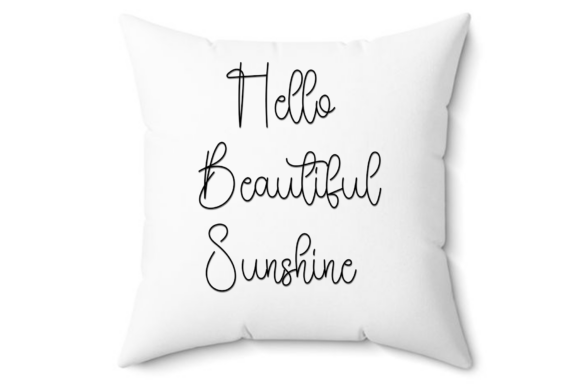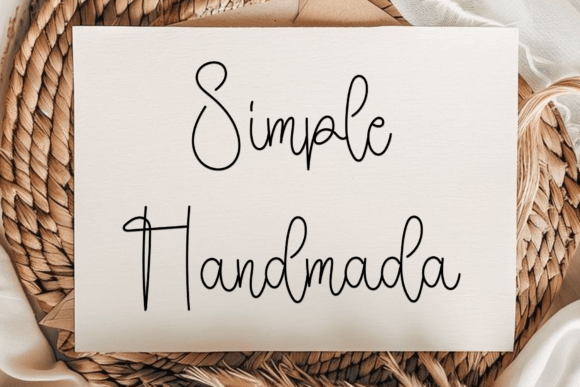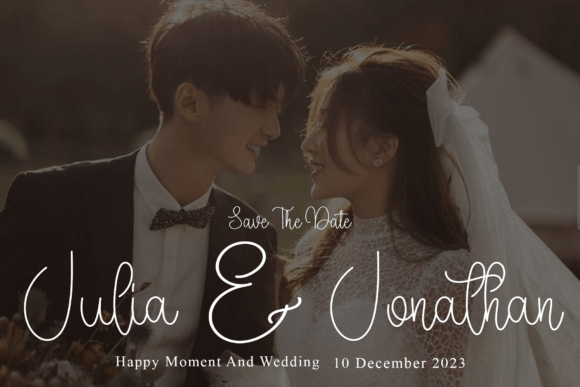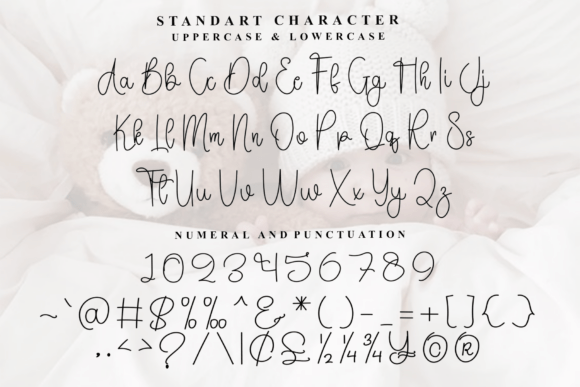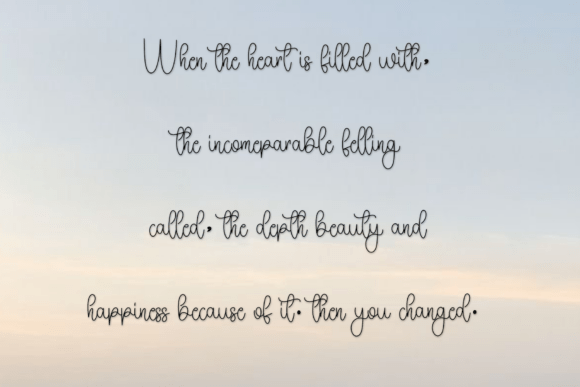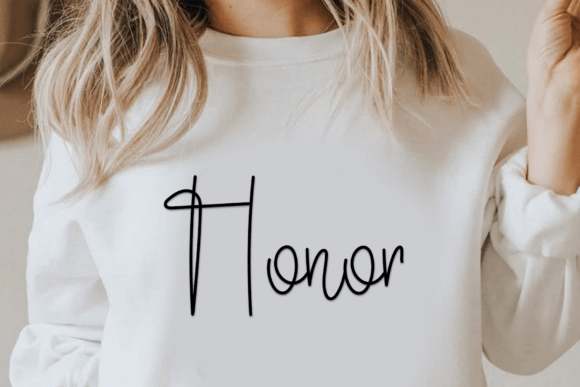
Discover the Charm of Farmhouse Font: Elevate Your Designs with a Unique Touch
In the world of typography, few fonts manage to capture the essence of rustic charm and modern appeal as effectively as the Farmhouse Font. This beautifully crafted font is designed with a soft, unique touch that sets it apart from more traditional typefaces. Its distinctive strokes and versatile character set make it an invaluable asset for designers, crafters, and creatives looking to add a personal touch to their projects.
The Distinctive Character of Farmhouse Font
Farmhouse Font boasts a unique design that blends seamlessly into various creative projects. Its soft strokes and carefully considered character set give it a special charm, making it perfect for a wide range of applications. Whether you’re working on a design project, crafting a handmade card, or developing a brand identity, Farmhouse Font brings a touch of warmth and personality that can elevate your work from ordinary to extraordinary.
One of the standout features of Farmhouse Font is its versatility. With a comprehensive set of characters, this font can be used in a multitude of creative contexts. From digital designs and social media graphics to handmade crafts and signage, Farmhouse Font adapts effortlessly to different mediums and styles. This adaptability makes it a go-to choice for creatives who value flexibility and want a font that can keep up with their imaginative projects.
Ideal for a Wide Range of Products
The natural, rustic charm of Farmhouse Font makes it an excellent choice for a variety of products. From branding and packaging to stationery and DIY crafts, this font can add a unique and appealing touch to your creations. Its legibility and aesthetic appeal make it suitable for both digital and print materials, allowing you to maintain consistency across different mediums.
Enhance Your Designs with Farmhouse Font
Farmhouse Font has the power to transform your designs, making them more engaging and attractive to a broad audience. Its distinctive style resonates with people across different artistic and creative fields, making it an excellent choice for projects aimed at a diverse demographic. Whether you’re a professional designer or a hobbyist crafter, Farmhouse Font can help you create works that stand out and leave a lasting impression.
Applications of Farmhouse Font
The possibilities for using Farmhouse Font are endless. Here are a few ideas to get you started:
- Branding and Logo Design: Use Farmhouse Font to create a memorable brand identity that reflects your values and personality.
- DIY Crafts: Add a personal touch to your handmade crafts, such as cards, invitations, and decorations.
- Digital Graphics: Incorporate Farmhouse Font into your social media graphics, blog posts, and website design for a unique look.
- Stationery and Packaging: Elevate your stationery and packaging designs with a font that exudes warmth and charm.
Farmhouse Font is more than just a typeface; it’s a creative tool that can bring your projects to life. With its unique design, versatile character set, and seamless compatibility, it’s an excellent addition to any designer’s or crafter’s toolkit. Whether you’re looking to add a rustic touch to your branding, create eye-catching digital graphics, or craft beautiful handmade projects, Farmhouse Font is the perfect choice. Discover the charm of Farmhouse Font and elevate your designs with a touch of elegance and personality.